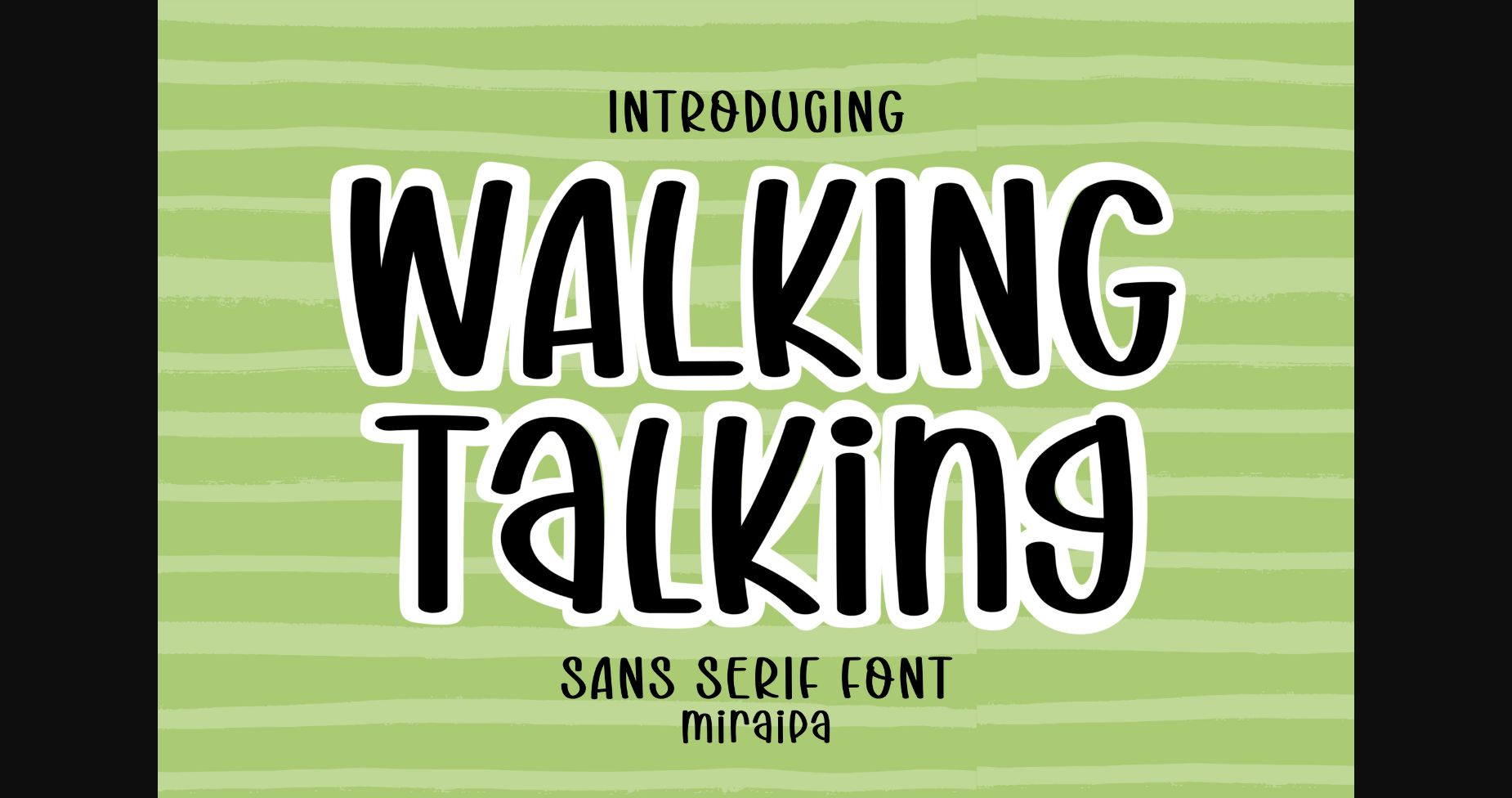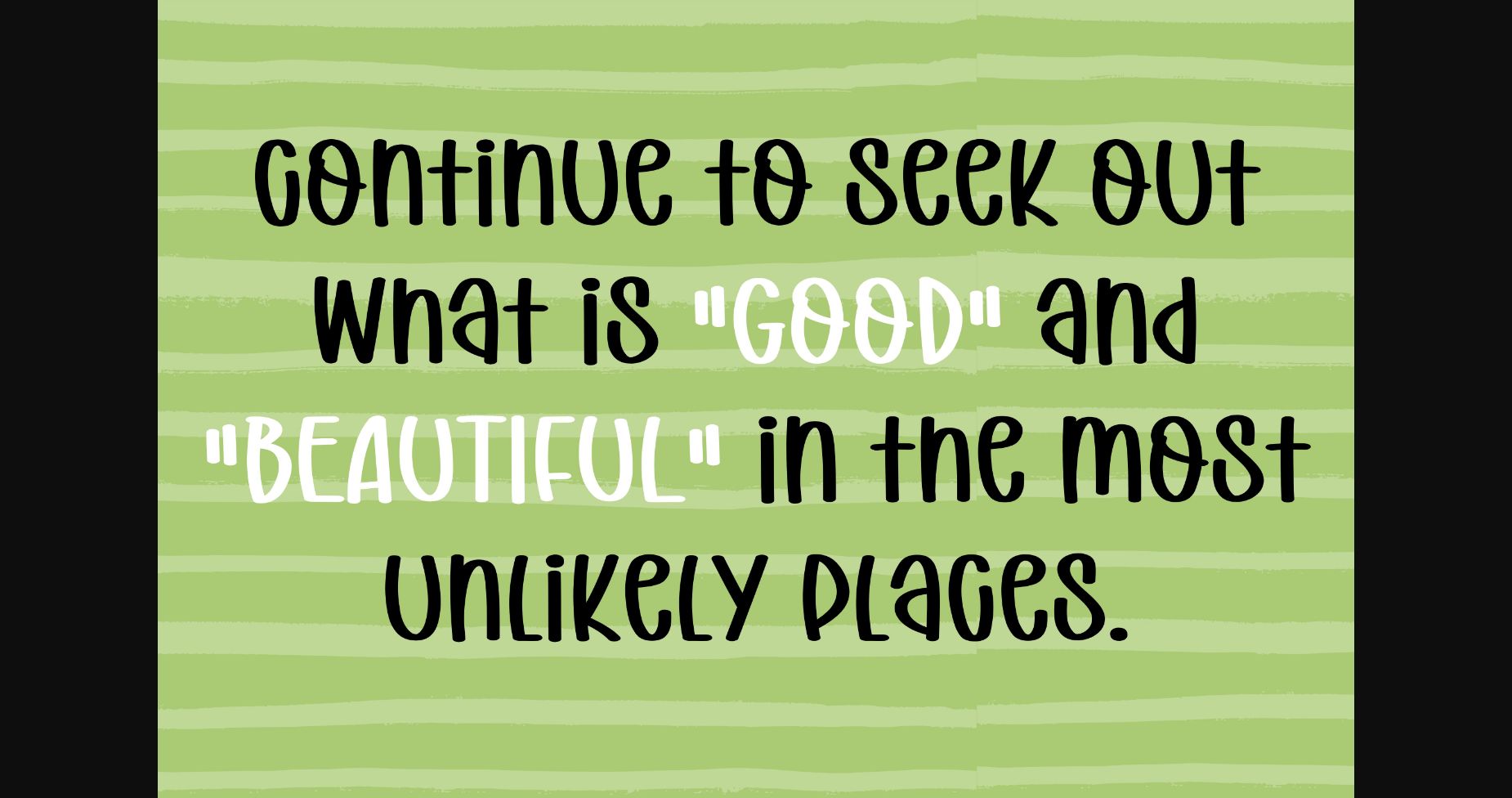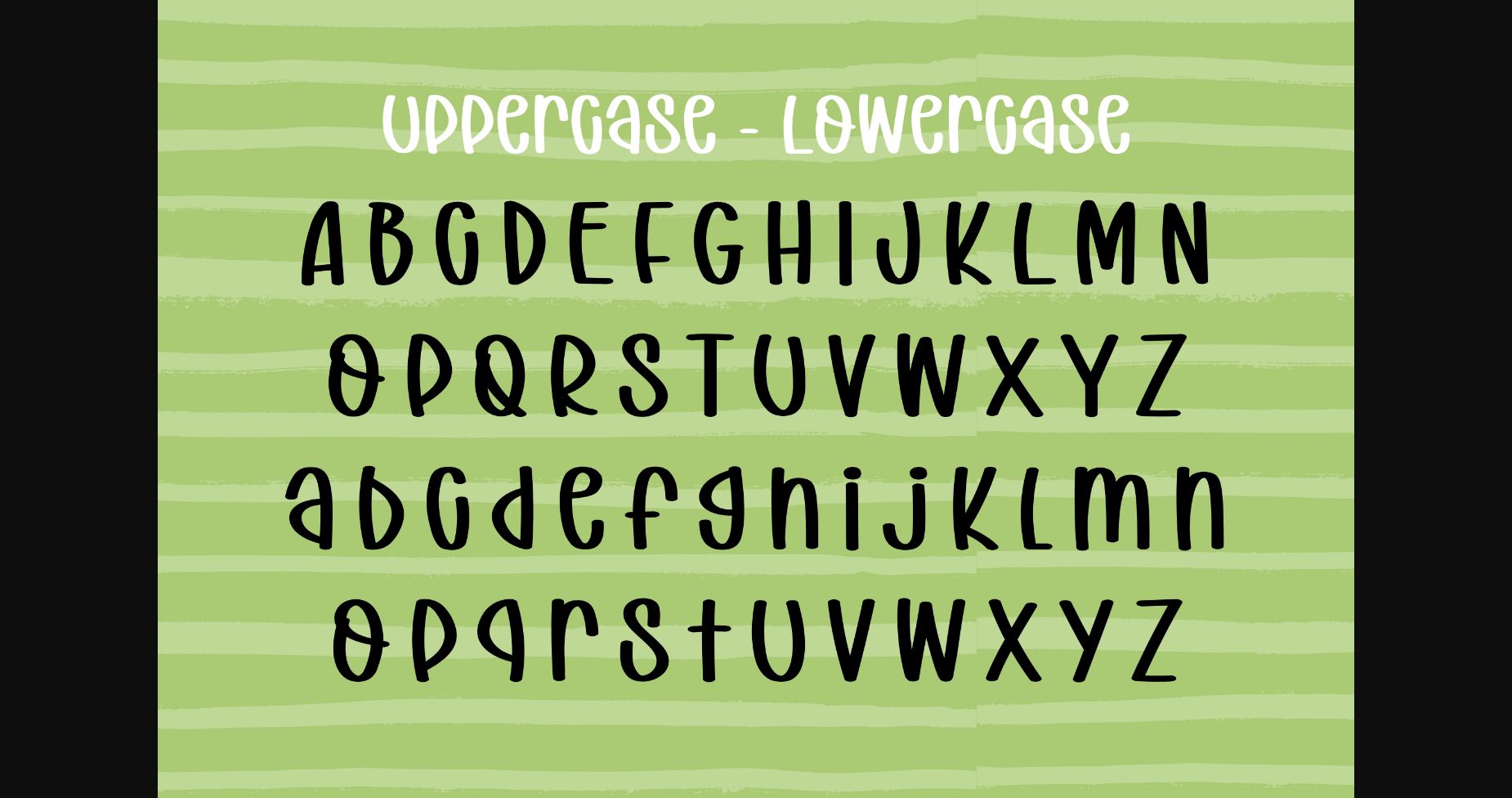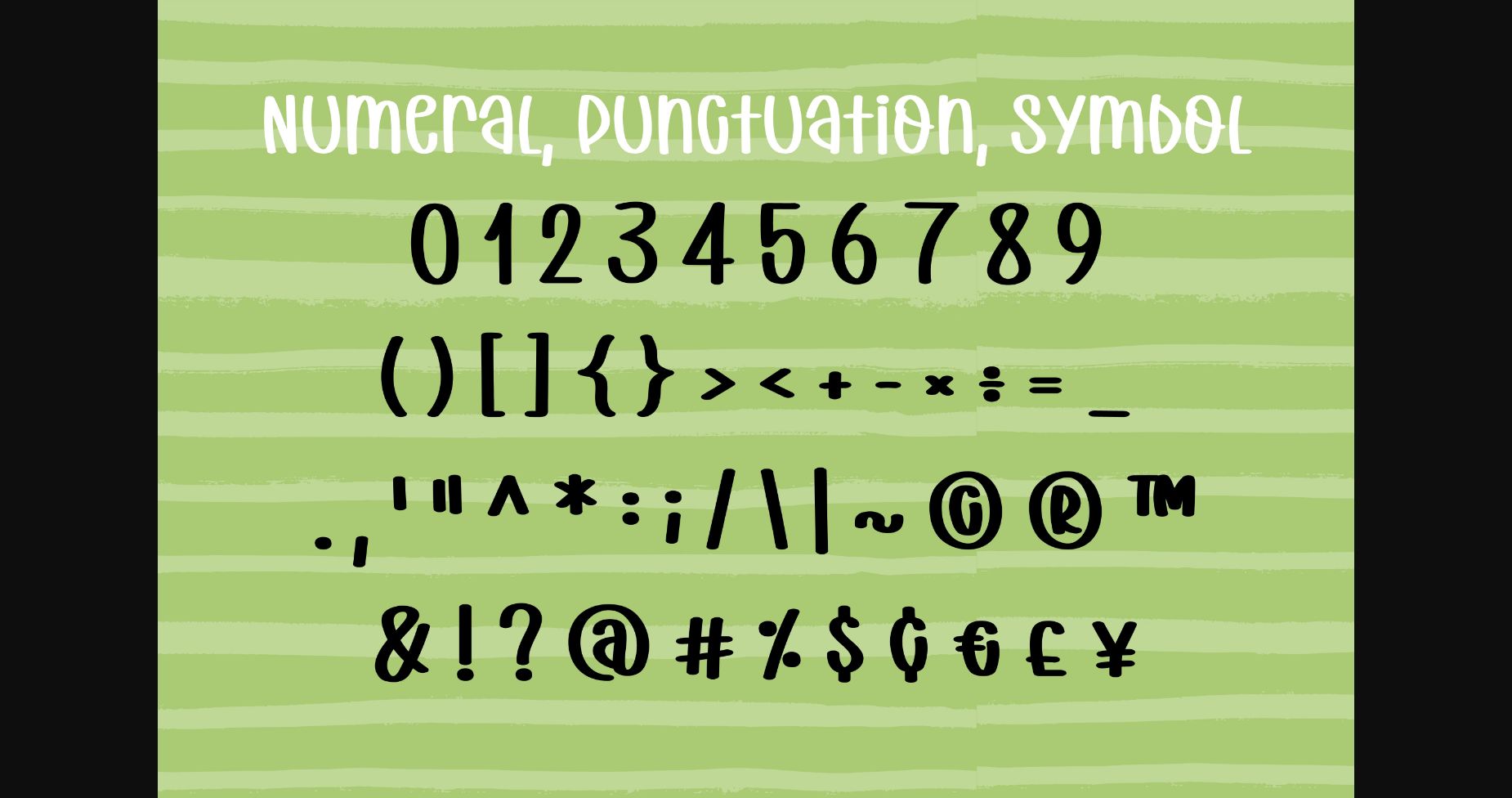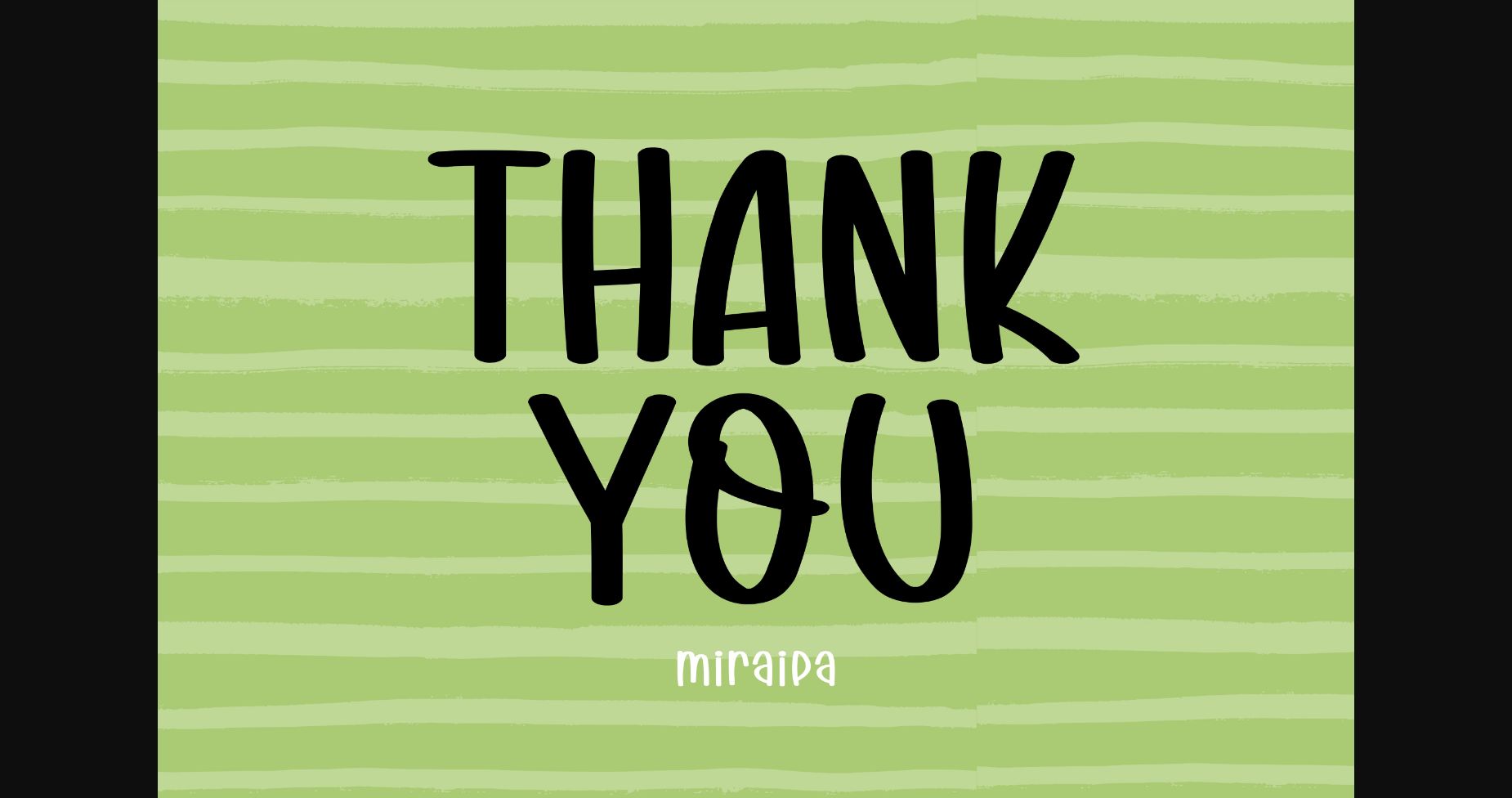
Walking Talking Font
About Walking Talking Font
Walking Talking is a friendly and attractive sans-serif font that is perfect for creating approachable and welcoming designs. This font features clean and modern letterforms with a soft and inviting feel. Ideal for designing websites, packaging, or any project where a friendly and trustworthy vibe is needed. Bring your designs to life with this charming font.